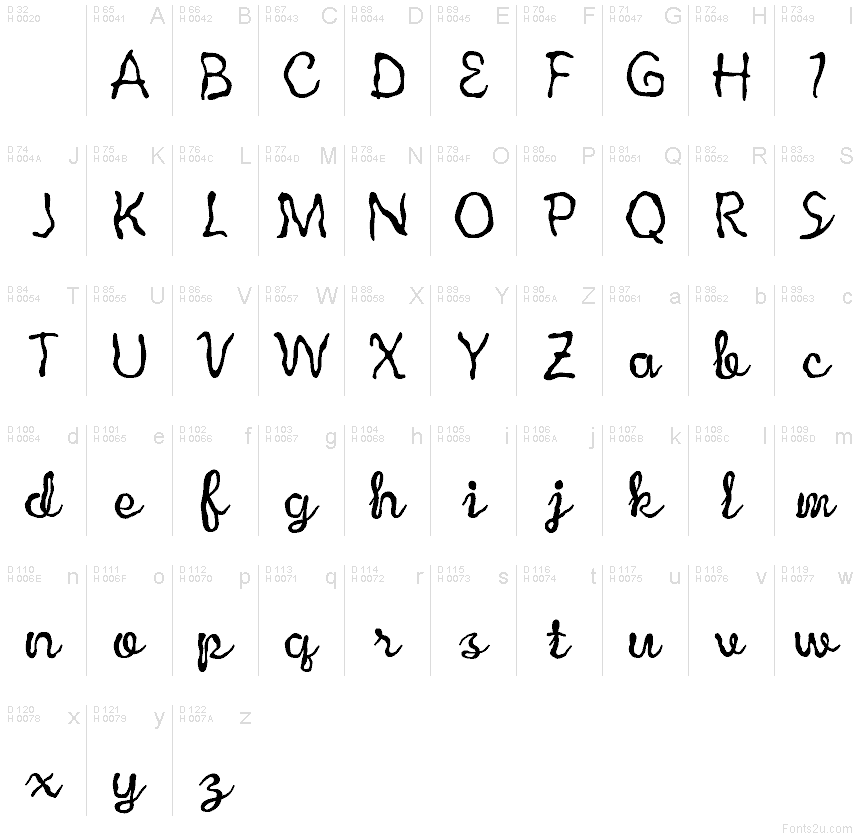
CS Melanie Regular Demo
CS Melanie font by Craft Supply Co. is a free trash script font that leans into rough, hand-scrawled energy. Its defining trait is the wiry, ink-drag texture—softly ragged edges, slightly shaky rhythm, and playful loops that feel scribbled with a drying marker. The flow stays readable while the grit adds character, giving you that “found on a flyer pole” authenticity without sacrificing legibility.
Using CS Melanie, headlines snap with DIY attitude—great for zines, underground event posters, skate or streetwear branding, edgy packaging, coffee shop boards, and album art. The uneven cadence creates movement, so short phrases and punchy tags really sing. For balance, pair this free font with a clean condensed sans; keep CS Melanie big to showcase the grain and let the supporting text handle the details.